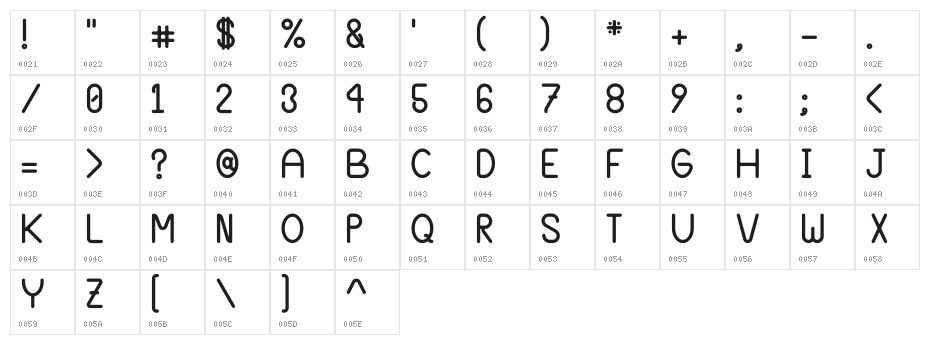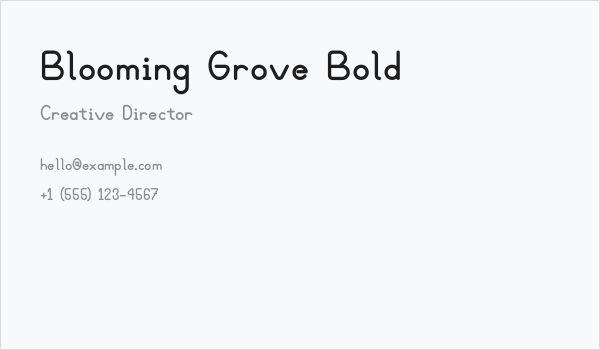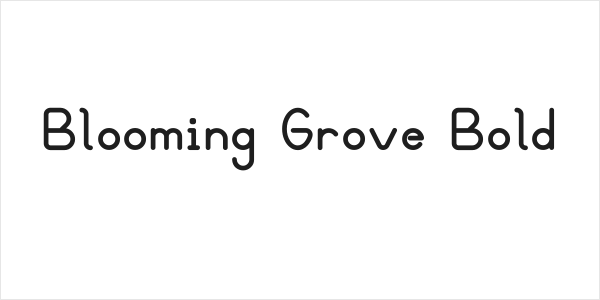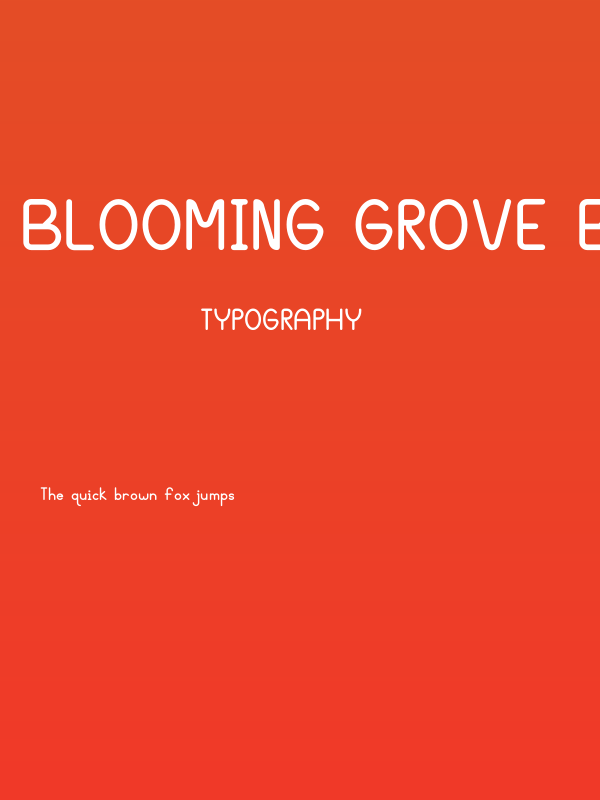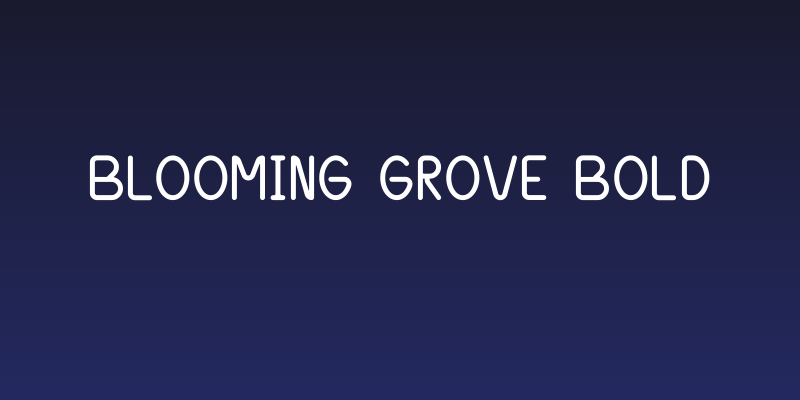
Blooming Grove Bold Font
Blooming Grove Bold Description
This font features a playful and rounded design, characterized by its smooth curves and uniform stroke width. The letters are bold and have a friendly, approachable appearance, making them suitable for a variety of creative applications. The uppercase and lowercase characters maintain a consistent style, with rounded terminals and a slightly condensed form. The numerals and special characters follow the same design principles, ensuring a cohesive look across all text elements. The overall aesthetic is modern yet whimsical, offering a unique blend of readability and personality.
| Overall Style | Modern, Playful |
| Proposed Projects | Ideal for children's books, playful branding, casual invitations, and creative posters. |